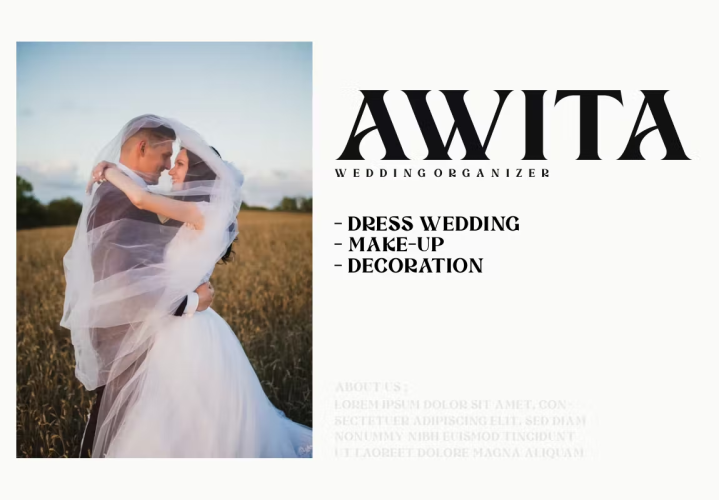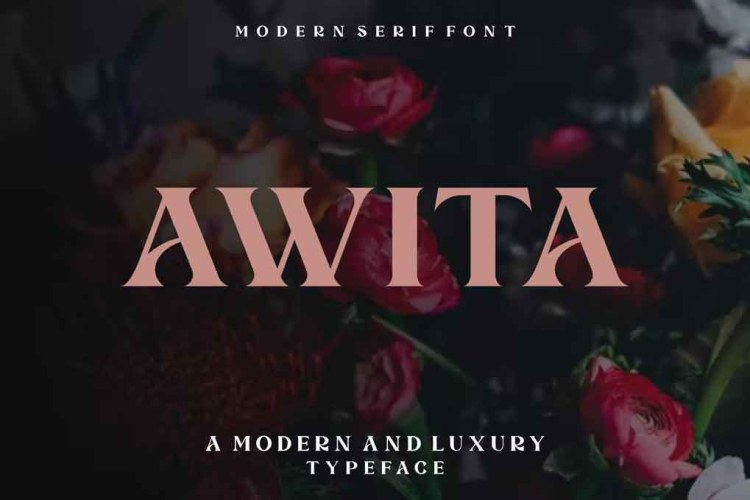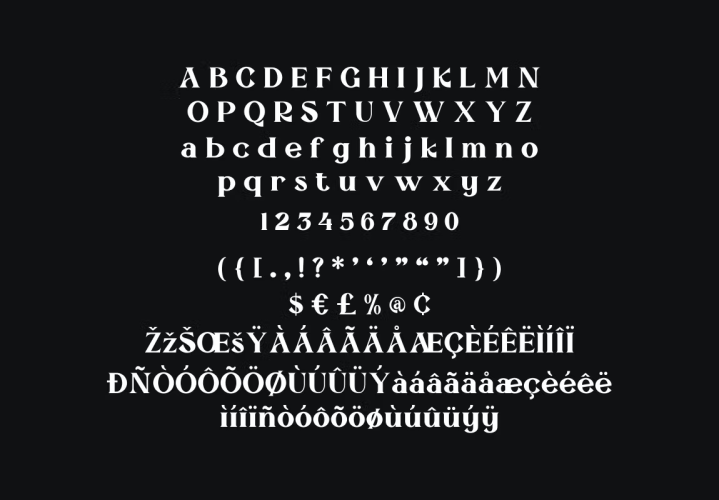
Awita Modern Serif Font
Introducing of our new product the name is Awita a Modern Serif Font, Awita inspired by the upscale luxury style. This font is perfect for posters, social media posts, branding, personal projects, etc.
Where Awita Modern Serif Font works best
Awita Modern Serif Font gives long-form text a classic, trustworthy rhythm — ideal for magazine spreads, annual reports and book interiors.
Pair Awita Modern Serif Font with generous letter-spacing for wordmarks in fashion, hospitality, wine and jewellery branding.
Use Awita Modern Serif Font for slide titles in Keynote, PowerPoint or Google Slides to add authority without looking dated.
What is Awita Modern Serif Font good for?
Awita Modern Serif Font is a Serif Fonts typeface tagged Branding, Modern, Poster, Serif. It works well for headlines, logos, posters, social media graphics and branding projects that need a distinctive serif fonts look.